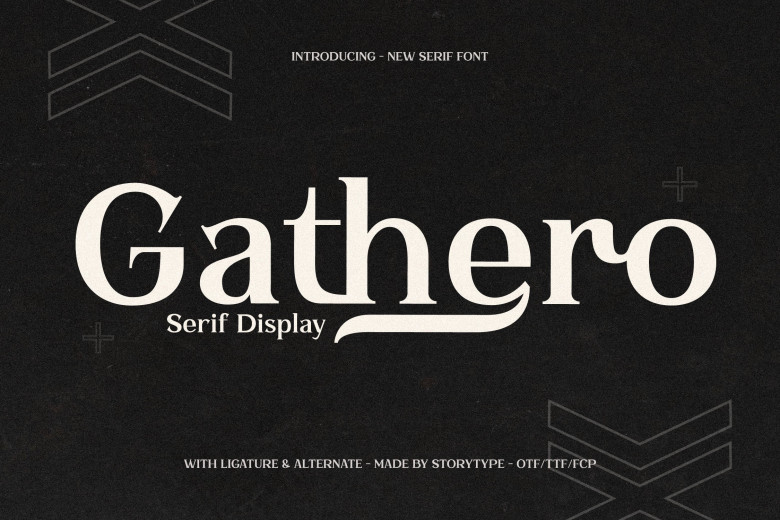
Gathero Font
Gathero – a modern & classic serif font which own unique style & modern look. This perfect for elegant & luxury logo, book or movie title design, fashion brand, magazine, clothes, lettering, quotes, and so much more.
Gathero Serif Font